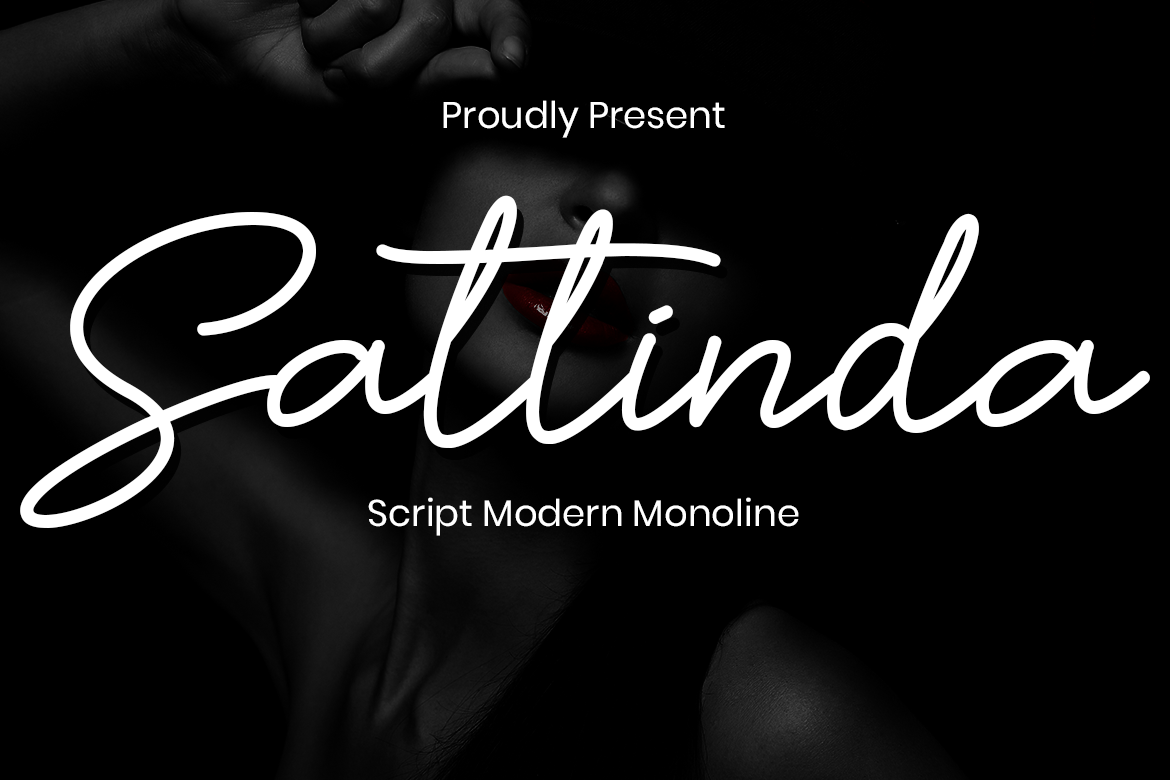
Sattinda Script Monoline Font
Sattinda is a thin and elegant handwritten font. It features a cute and joyful style that will take your designs to the next level!